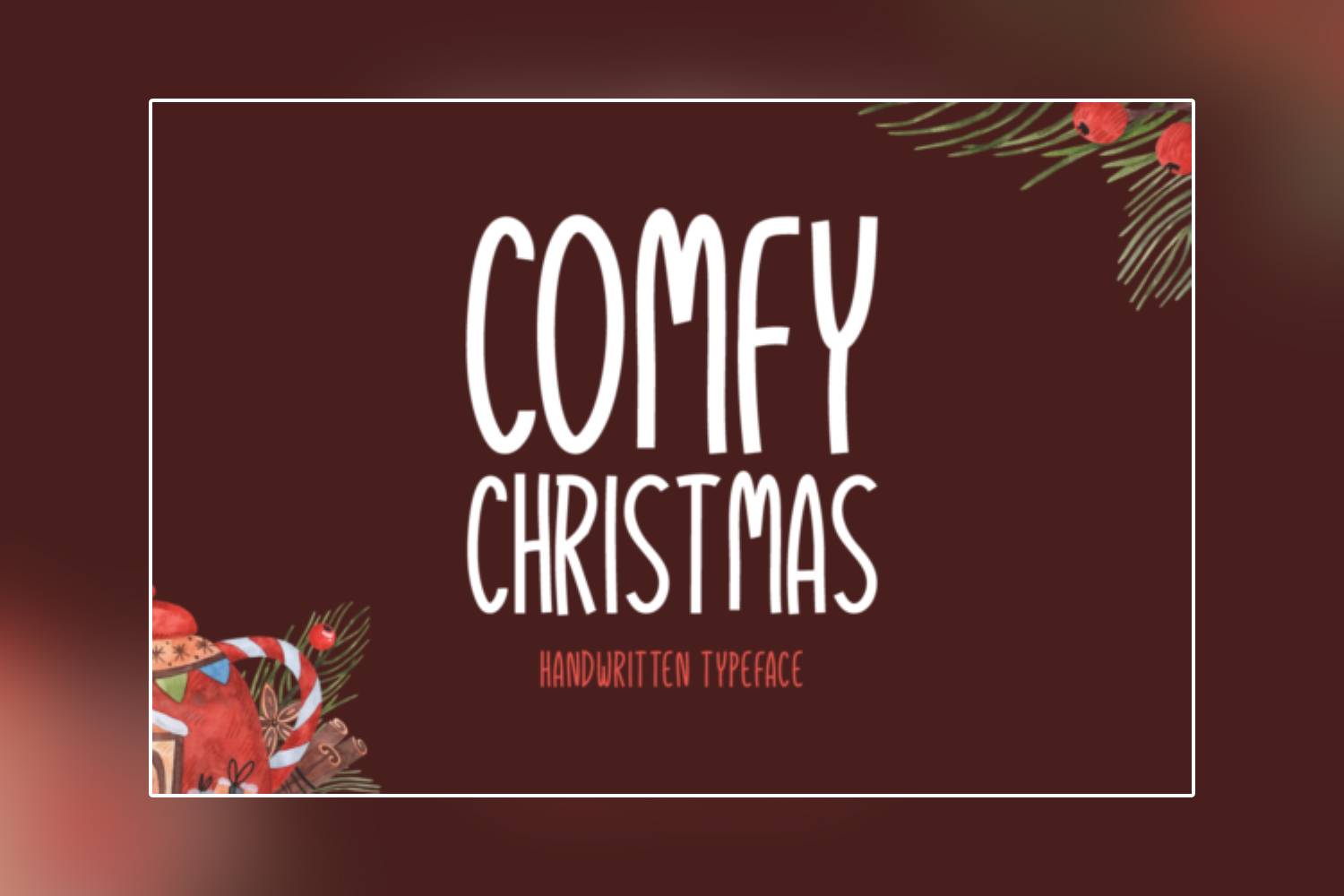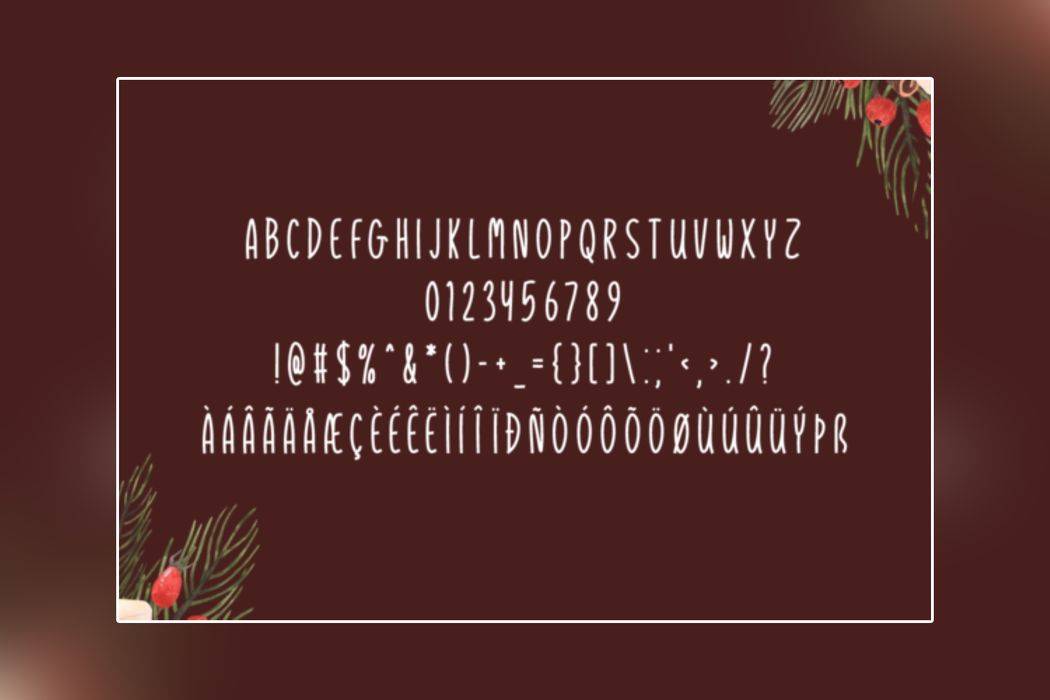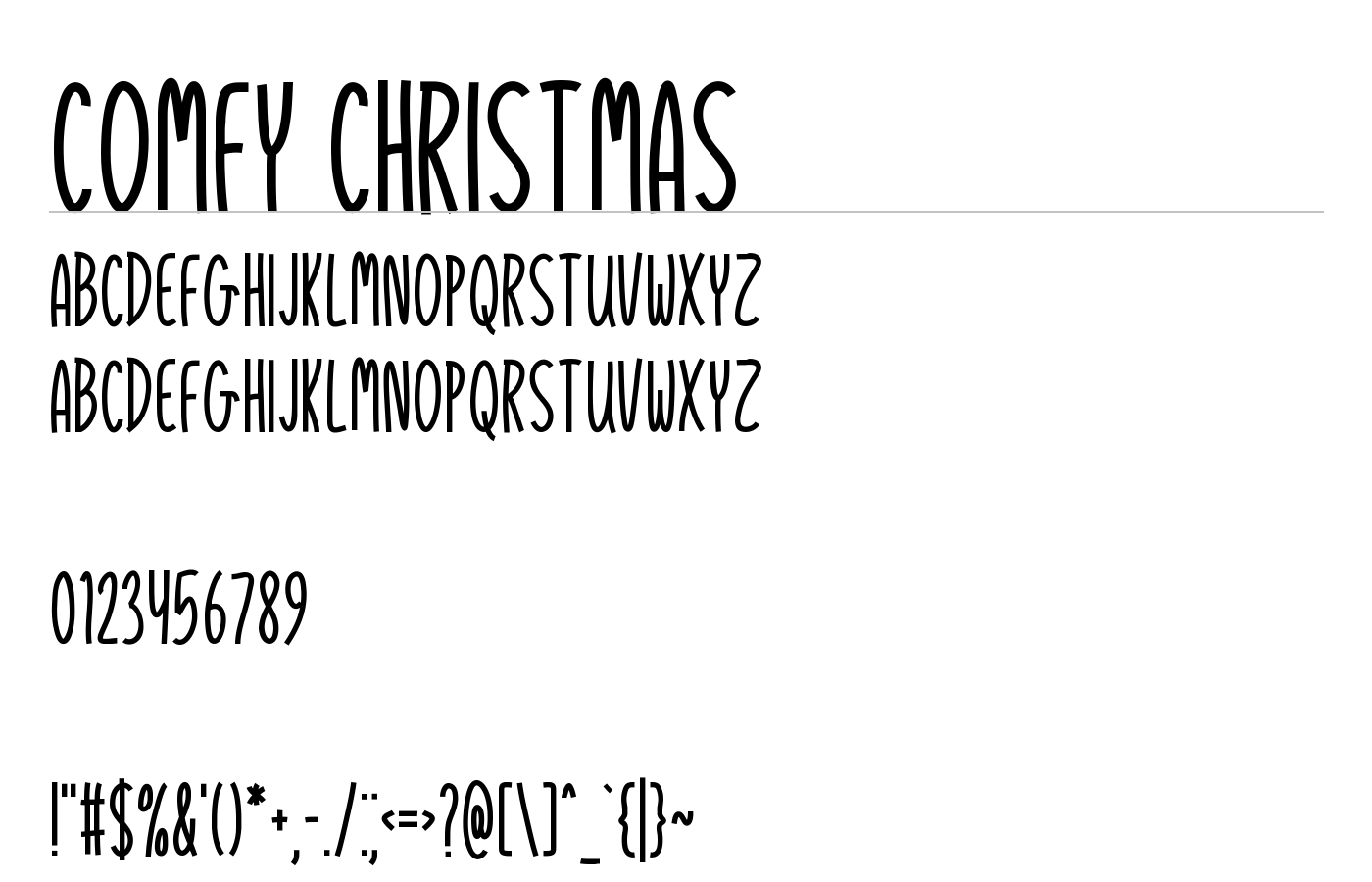
Comfy Christmas Font is a tall, narrow sans serif typeface with a playful and casual feel, characterized by its hand-drawn, slightly irregular strokes. Its condensed letterforms and whimsical shapes create a friendly and inviting personality, making it ideal for festive designs, holiday cards, and cheerful branding that needs a warm, informal touch. This font works best for headlines and display use where a cozy, approachable vibe is desired.
Comfy Christmas Font
About Comfy Christmas Font